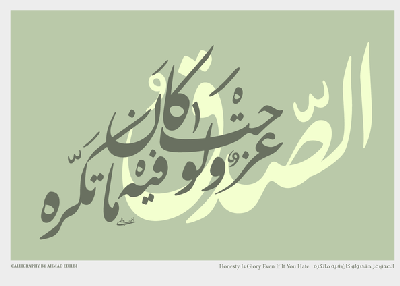
Modern Arabic font free Download
Typography web design and font goes hand-in-hand, and they are almost inseparable, many times finding is determining the perfect font for a project might seem like a quantum science simply because each font epitomize a design and has a distinct meaning.
Now coming to Arabic fonts, they are one of the most complex in the world of calligraphy and that is owing to their distinctiveness from their Latin counterpart, what makes the Arabic font complex is the fact it’s design is usually different, it is mostly done by joining dots and scripts.